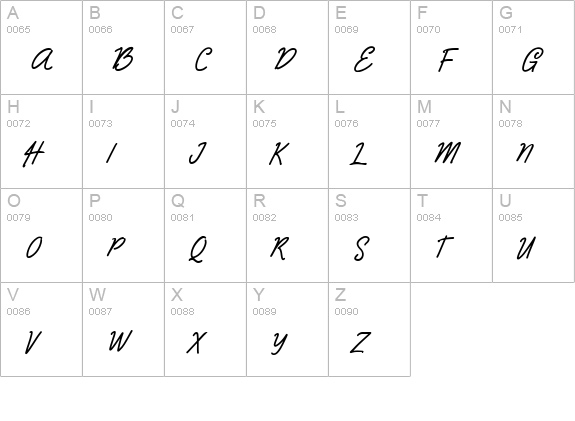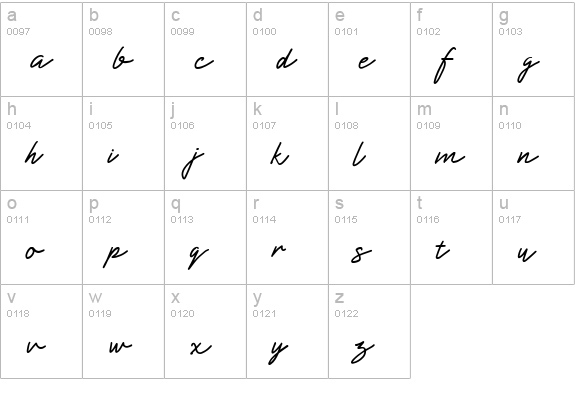
Shearlight Font Details
Shearlight is a demo font in the Script > Handwritten category, designed by patria_typestudio. It has been downloaded 118 times and is available for Windows, Mac and Linux.
Shearlight font is a modern and elegant typeface that exudes sophistication and style. With its sleek lines and graceful curves, this font is perfect for adding a touch of class to any design project. Whether you're creating invitations, logos, or branding materials, Shearlight font will make your text stand out with its unique charm.